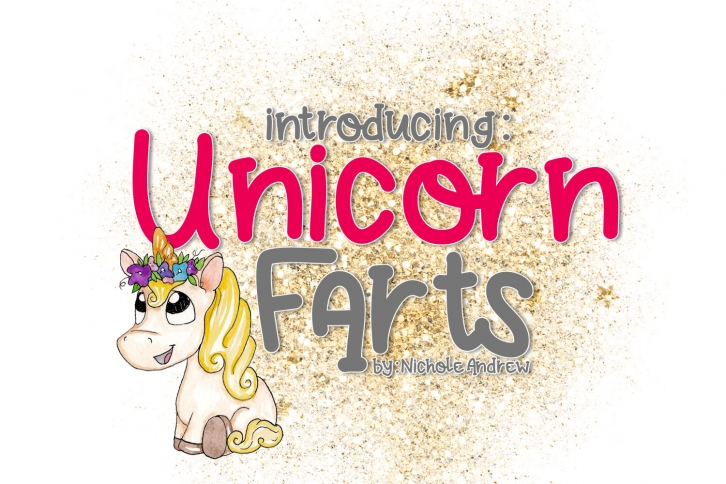
Unicorn Farts Handwritten is a gorgeous font that was realeased on December 27, 2018. The font can be used in many style contexts and design environments. Perfect for invitations, magazines, websites, logos, and more! It was designed by Nichole Andrew and the file size is 17.78 MB. Thanks for checking out this font!